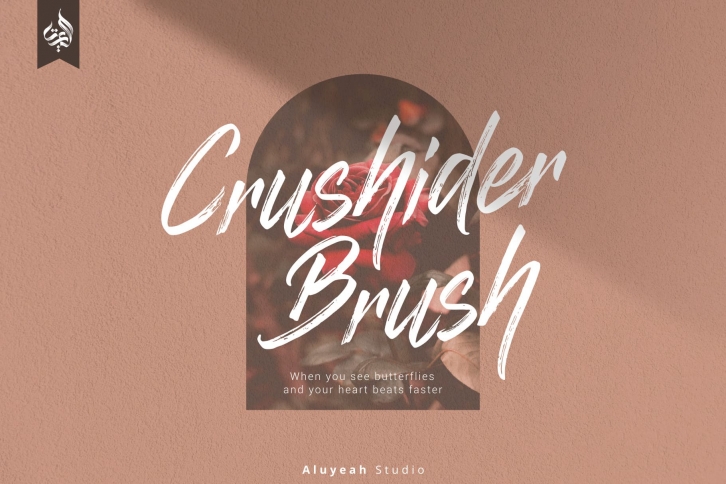
Crushider Brush, inspired by the feeling when we see your crush, and you will see a lot of butterflies and your heart rate goes up. Crush + hider, mixed feelings that are addictive but you also want to get out of the situation